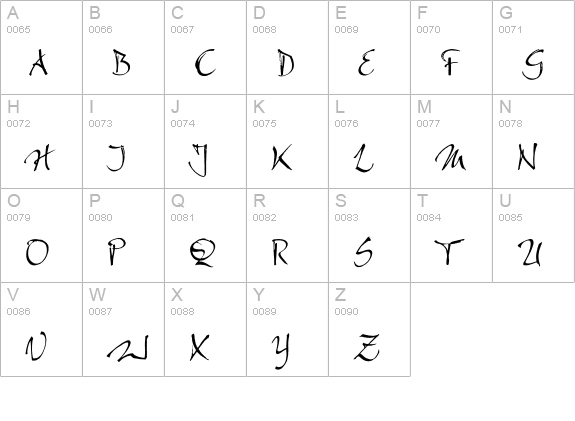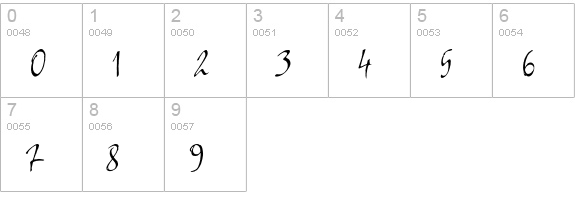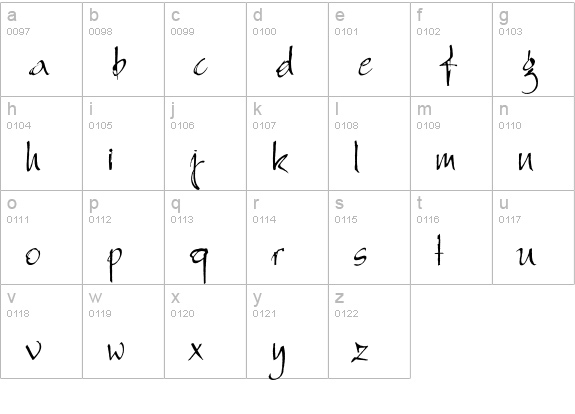
BergellPlain Font Details
BergellPlain font is a timeless and versatile typeface that exudes elegance and sophistication. Its clean lines and balanced proportions make it perfect for a wide range of design projects, from branding to editorial design. With its classic yet modern aesthetic, BergellPlain font is sure to make a statement and elevate any project it is used in. What sets BergellPlain font apart is not only its sleek design, but also its accessibility. This high-quality font is available for free download at FontsMarket.com, making it a valuable resource for designers, creatives, and anyone in need of a stylish and reliable typeface. Whether you're working on a print publication, website design, or any other creative endeavor, BergellPlain font is a must-have addition to your font library. Download it today and see how it can enhance your next project!